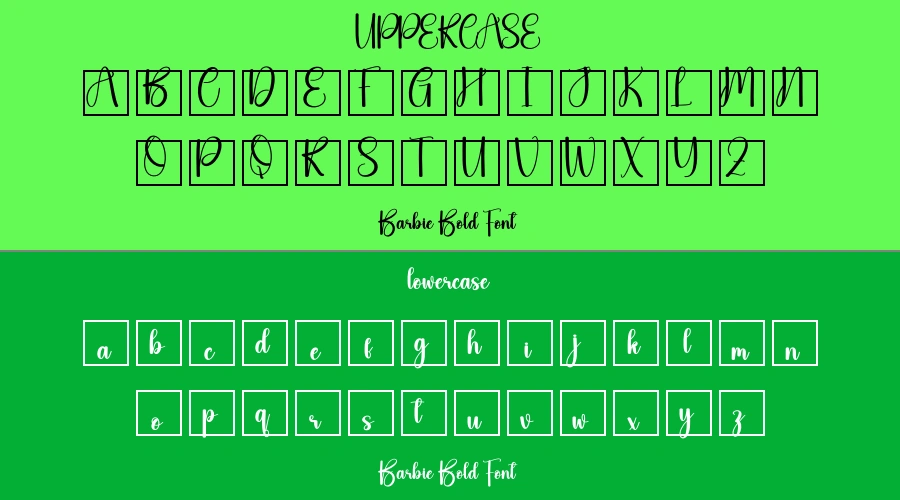
About Barbie Bold Font
Barbie Bold Font stands out for its distinctive combination of distinctive details and durability. Ideal for presentation decks, it provides the sophistication and classic beauty that professional projects demand. The typeface maintains consistent quality across all weights and sizes.
Key features include refined flared stems and practical language support, enhancing typographic expression. In footnotes applications, Barbie Bold Font demonstrates exceptional OCR compatibility. The beak formation and design lineage contribute to its distinctive character and professional appeal.